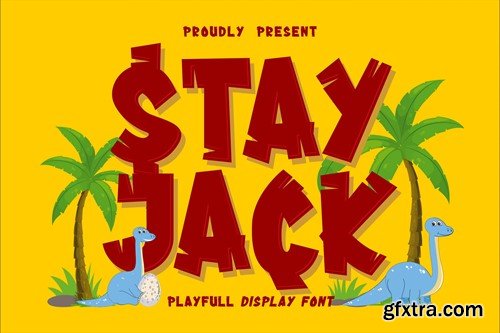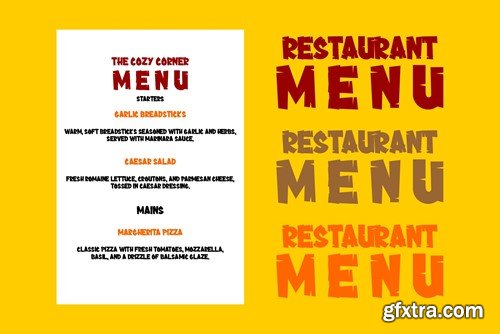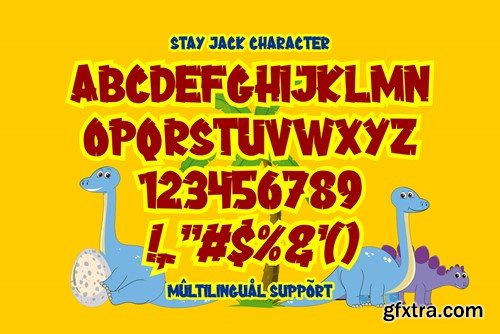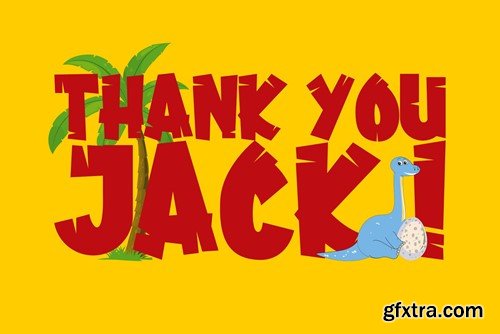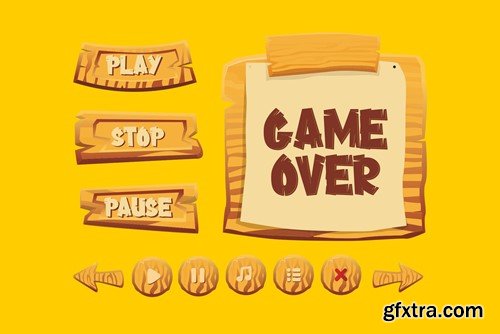
保持杰克 - 玩趣展示字体VJQKC9S
Stay Jack - Playful Display Font VJQKC9S
Stay Jack - Playful Display Font
Stay Jack is a delightful and whimsical display font that radiates playfulness and creativity. Its unique, handcrafted lettering adds a touch of fun and charm to your designs, making it a perfect choice for projects aimed at capturing the imagination and joy of your audience. Whether it's for greeting cards, posters, or children's books, Stay Jack infuses a sense of lightheartedness and creativity into your text, leaving a lasting impression.
Features:
• Standards Characters
• Punctuation
• PUA Encoded open
• Support Multilingual